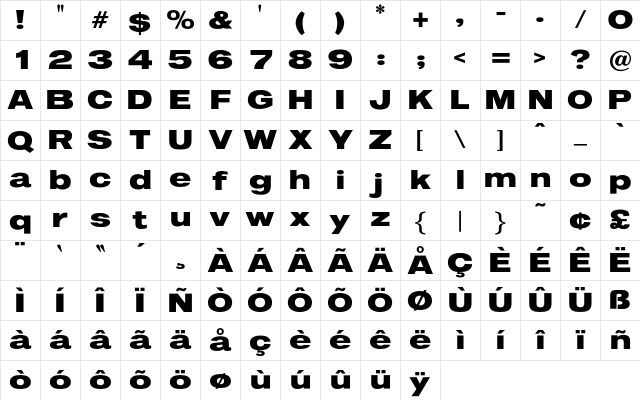
O PTIImprovNewWideNine
Design Context for O
O is a composed and adaptable typeface that performs quietly and consistently across a wide range of design contexts.